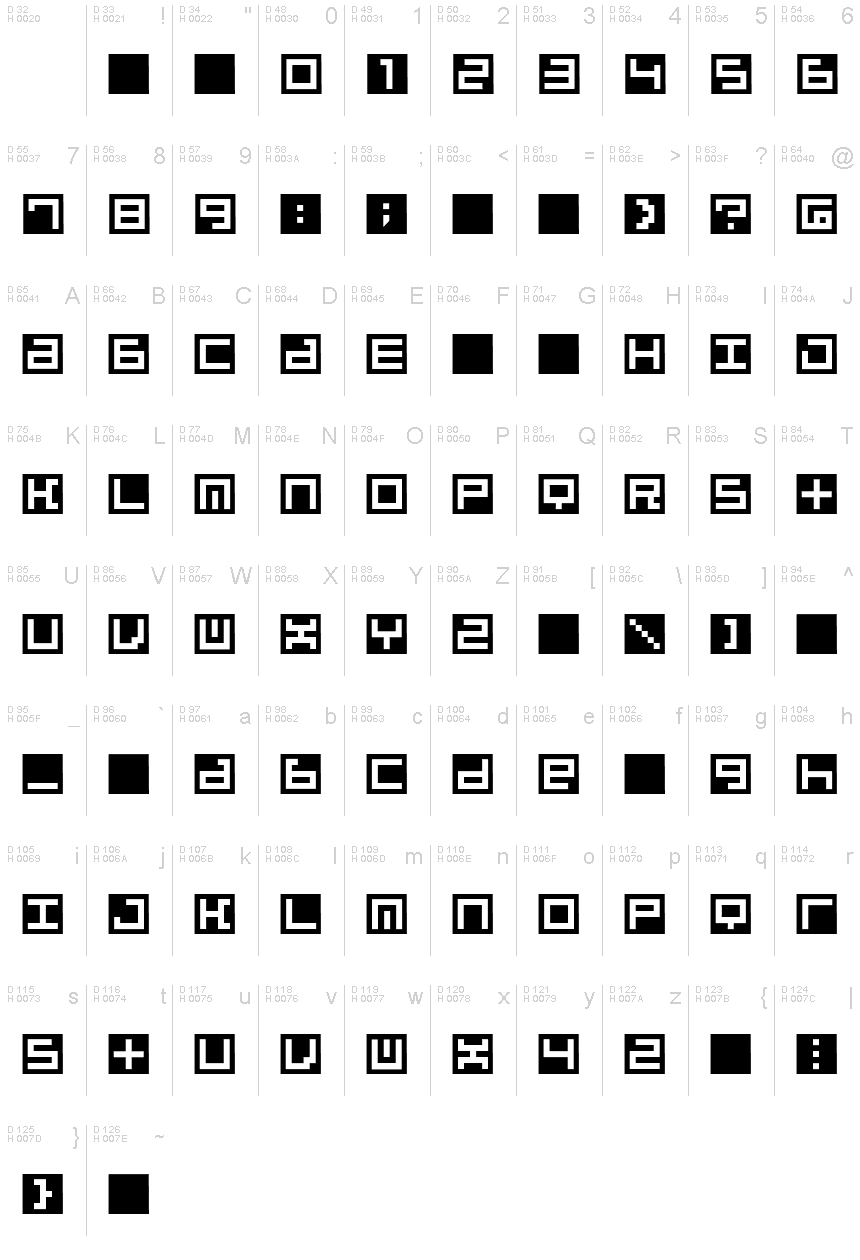
Beatbox InBox
Beatbox InBox font by Taylor Deupree is a free bitmap face with a chunky, squared-off rhythm that feels wired, playful, and unmistakably digital. Its block-built shapes create a steady pulse across the line, making short words feel punchy and organized instead of noisy. It reads like early screen graphics cleaned up for modern use.
Beatbox InBox works well for game menus, music flyers, tech posters, retro logos, stream graphics, sticker text, and bold web headers. This free font has enough structure to stay readable at medium sizes, while its pixelated texture adds instant era and attitude. Pair it with a plain sans for captions or interface copy to keep the look balanced.